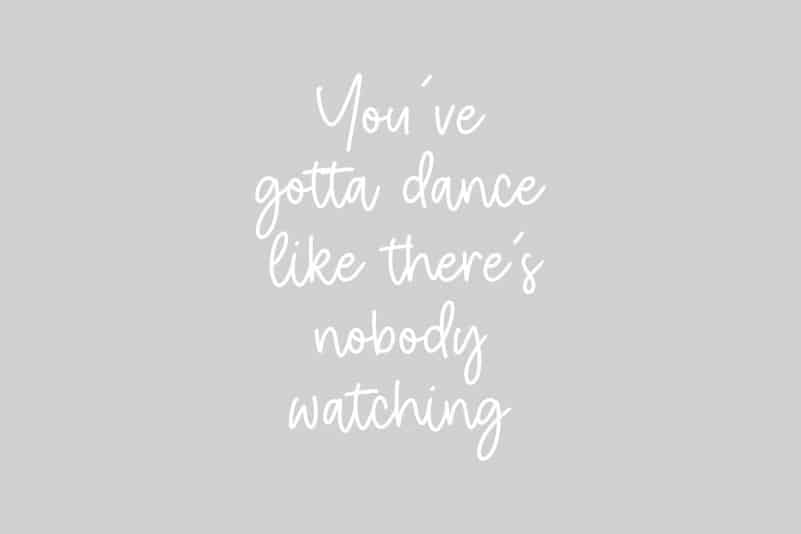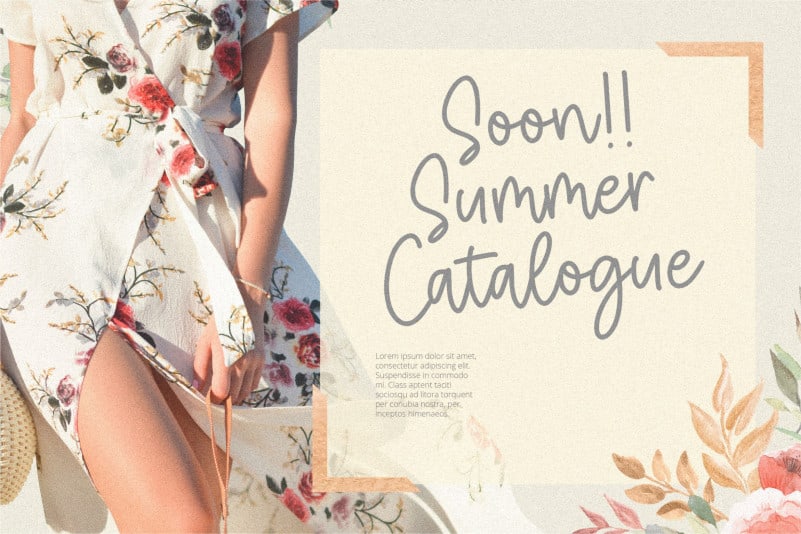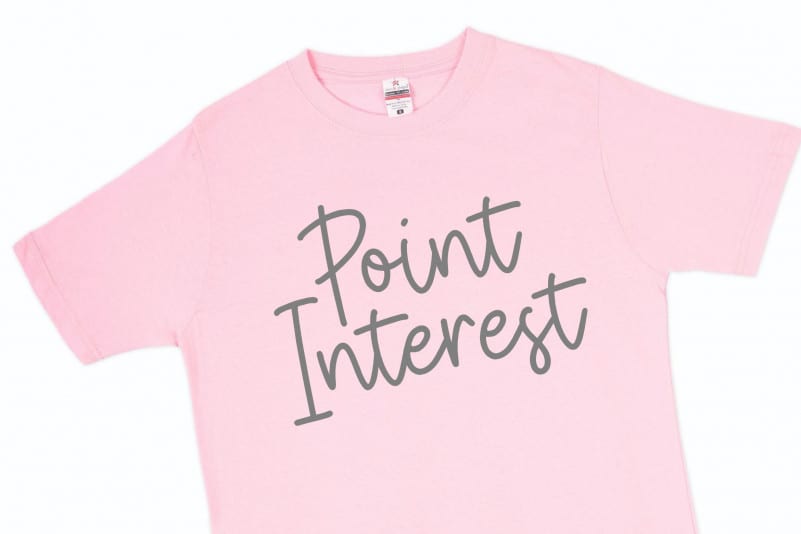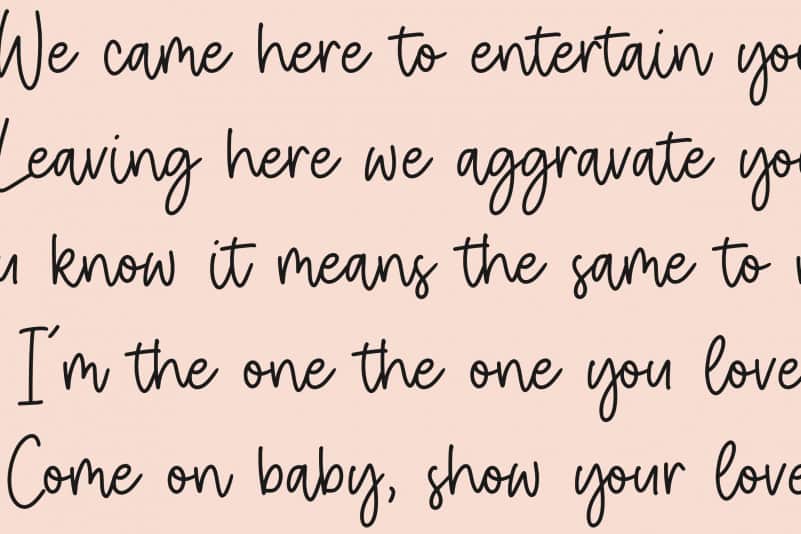
Goldie Dreambox Monoline Handwritten Font
Proudly Present, Goldie Dreambox Monoline Handwritten Font.
Goldie Dreambox is a Monoline Handwritten Font.
It is perfect for product packaging, branding project, megazine, social media, wedding, or just used to express words above the background.